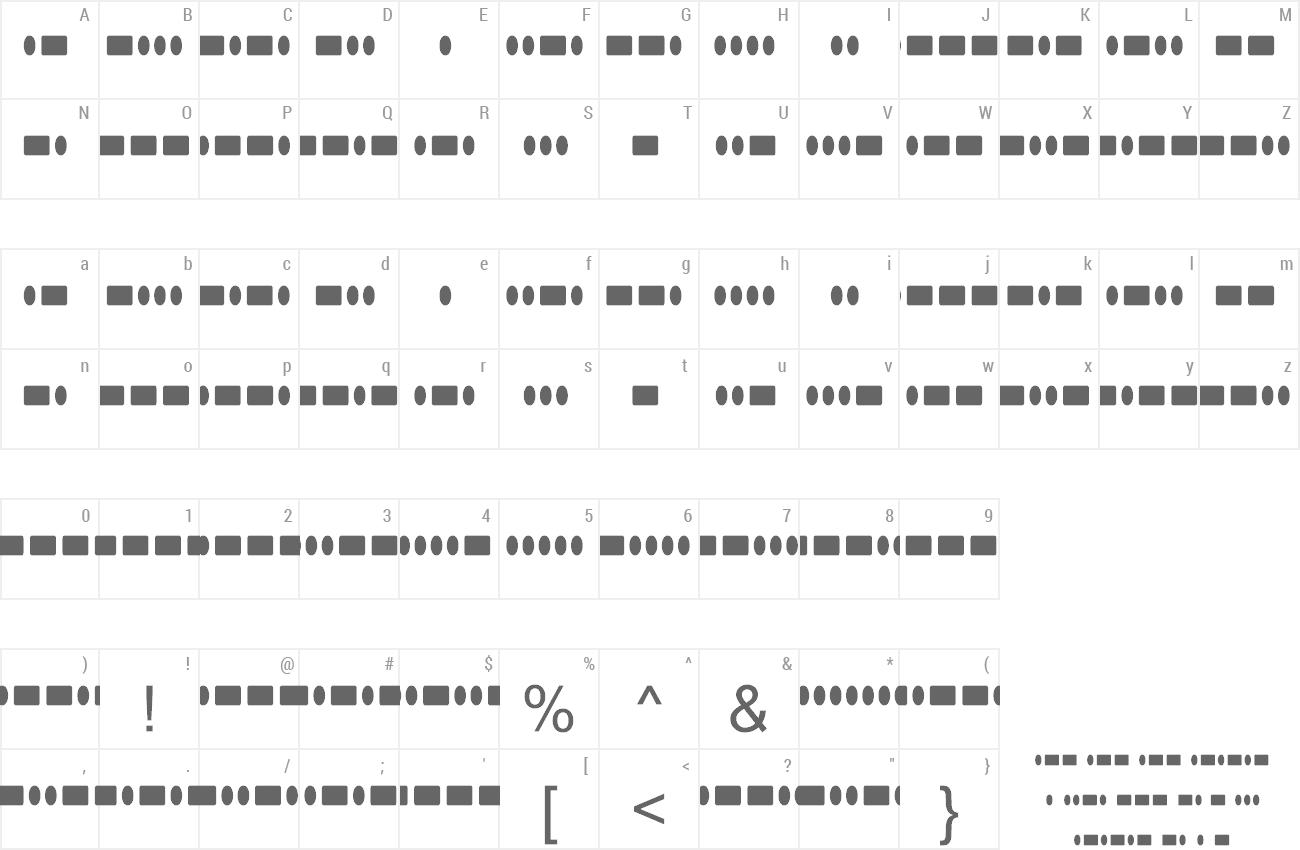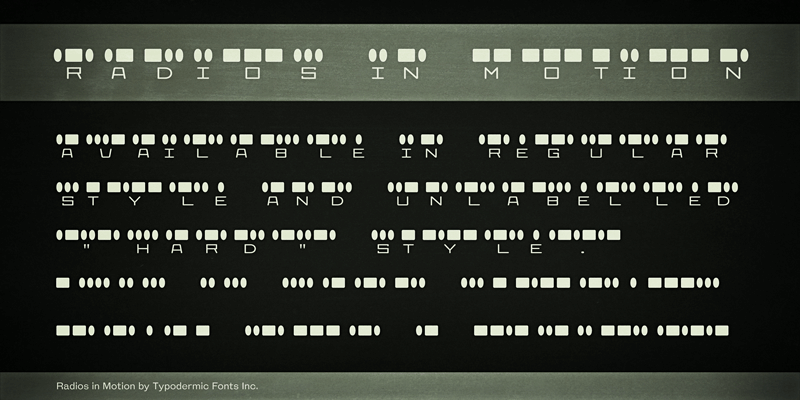
Radios in Motion is a morse code font in easy and hard styles. These fonts include a license that allows free commercial use: sometimes referred to as a desktop license. This allows you to install the fonts on a computer and use them to create posters, web graphics, game graphics, t-shirts, videos, signs, logos and more. Read the license agreement for details. If you'd like to embed these fonts in an app, ebook, on the web or anything that's not covered by the desktop license agreement, visit the link below. You'll find distributors who offer different types of licenses or you can contact me for help. http://typodermicfonts.com/radios-in-motion/ |